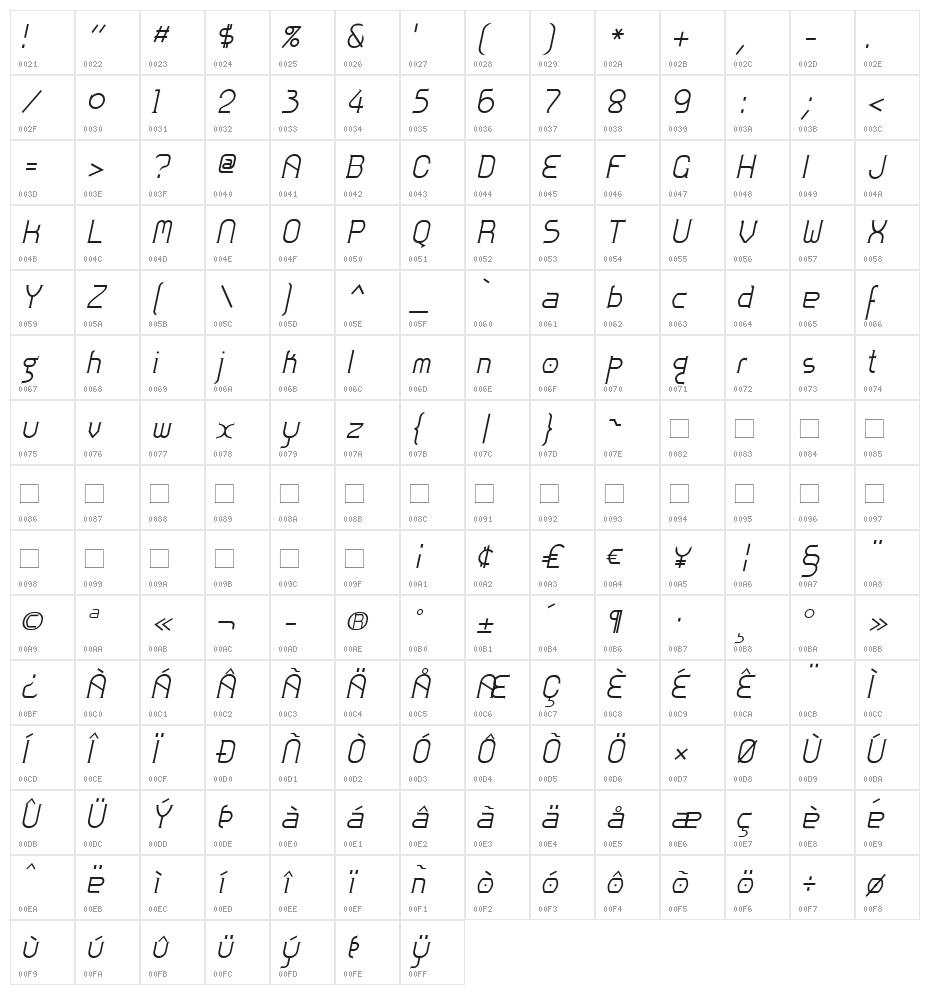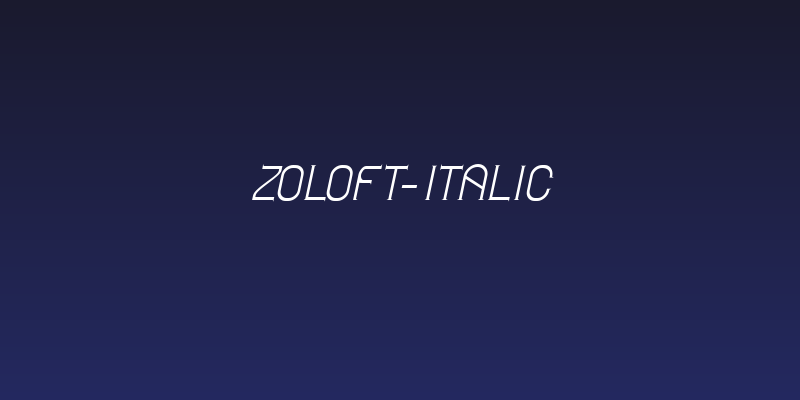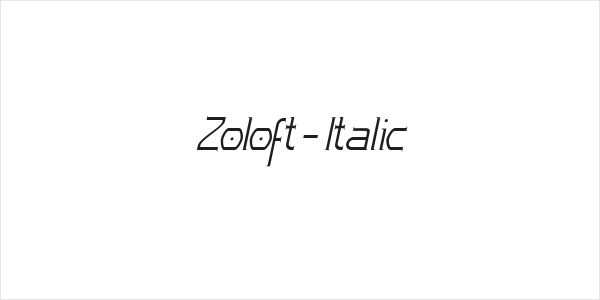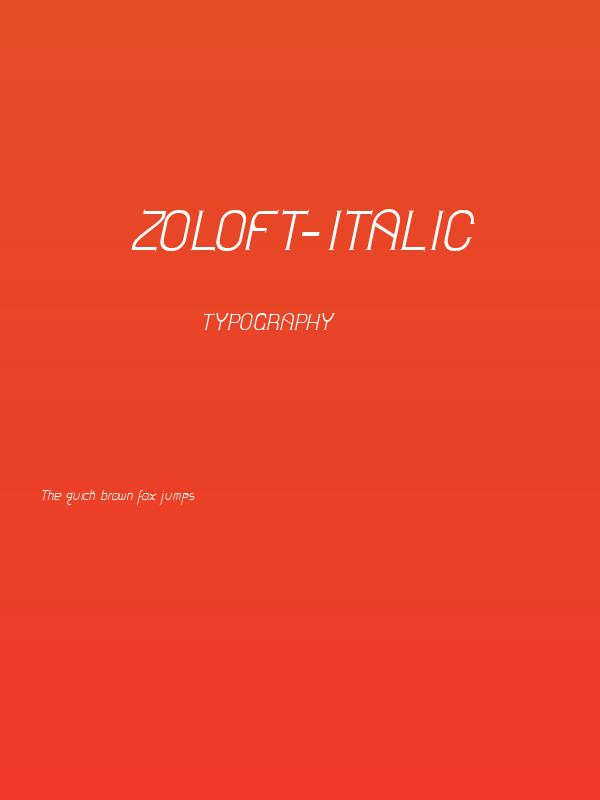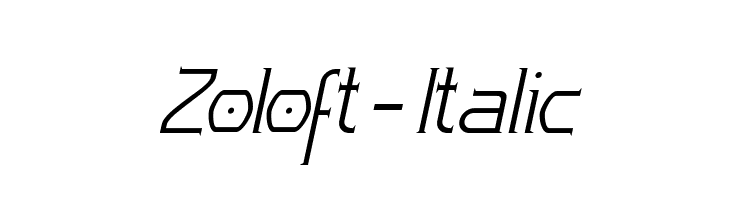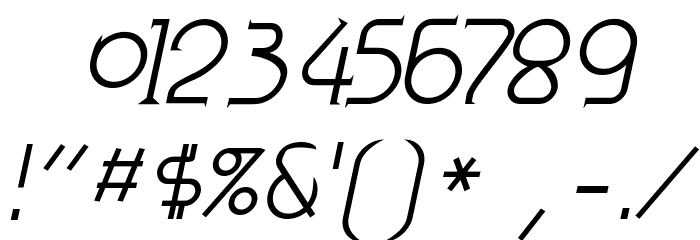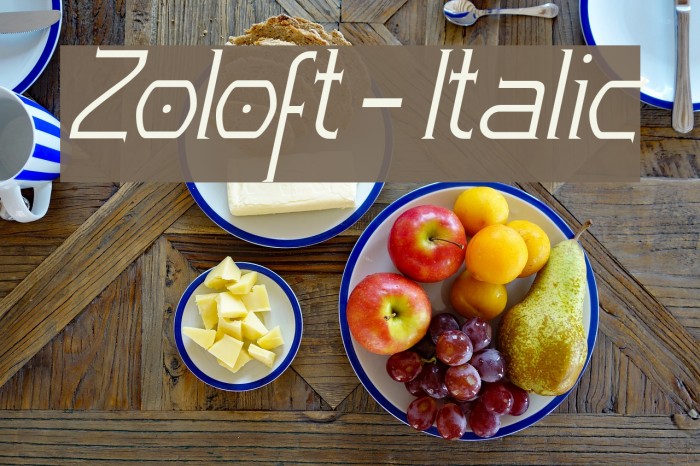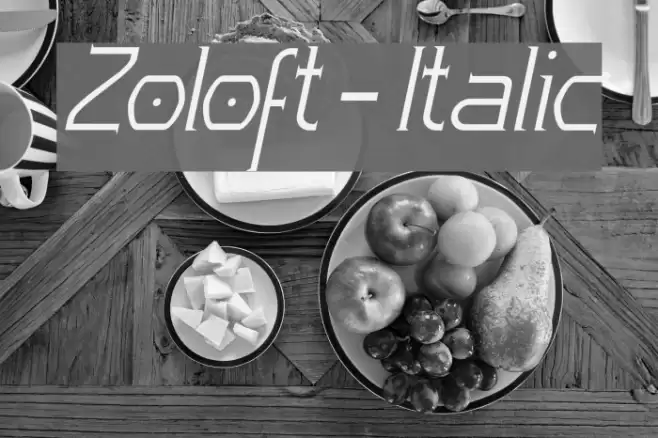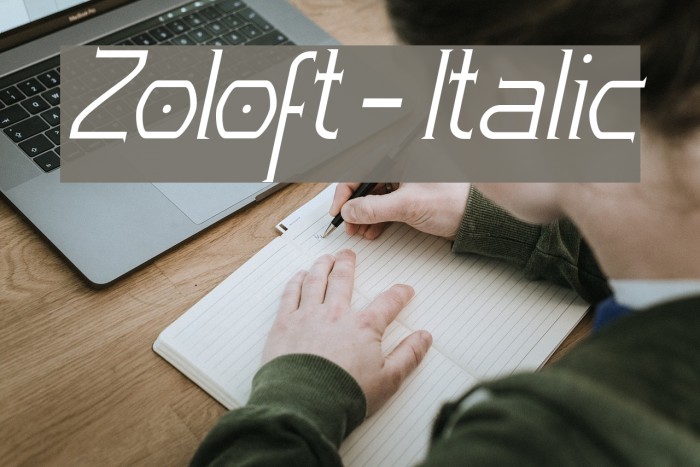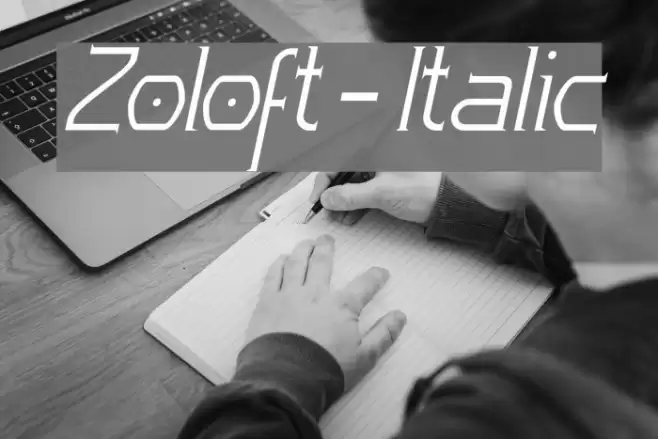
Zoloft-Italic Font
Zoloft-Italic Description
This font features a sleek and modern design with a slight italic slant, giving it a dynamic and forward-moving appearance. The characters are crafted with a geometric precision, showcasing clean lines and smooth curves. The uppercase letters have a distinct angularity, while the lowercase letters maintain a consistent flow, enhancing readability. The numerals are well-proportioned, and the special characters are designed to complement the overall aesthetic. This font's style is both contemporary and versatile, making it suitable for a variety of design applications.
| Use Case | Headlines, Logos, Editorial design |
| Proposed Projects | Ideal for branding, advertising, modern web design, and editorial layouts. |